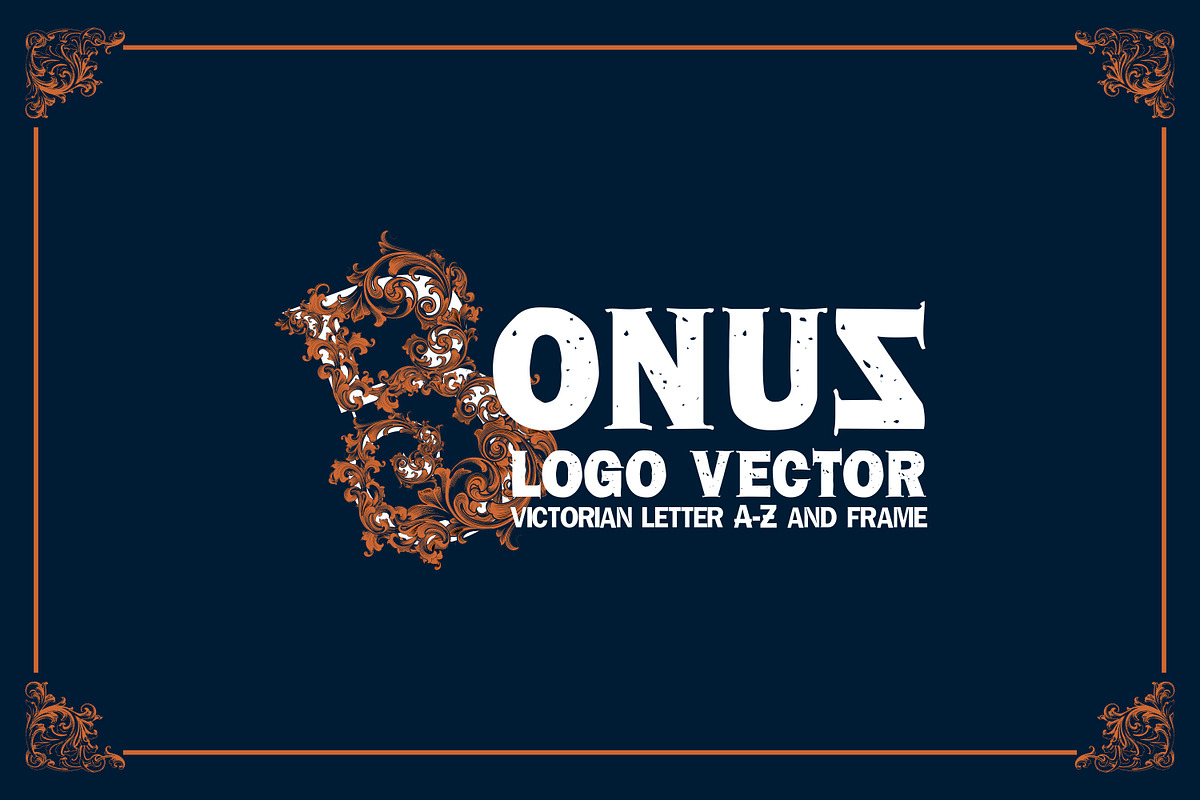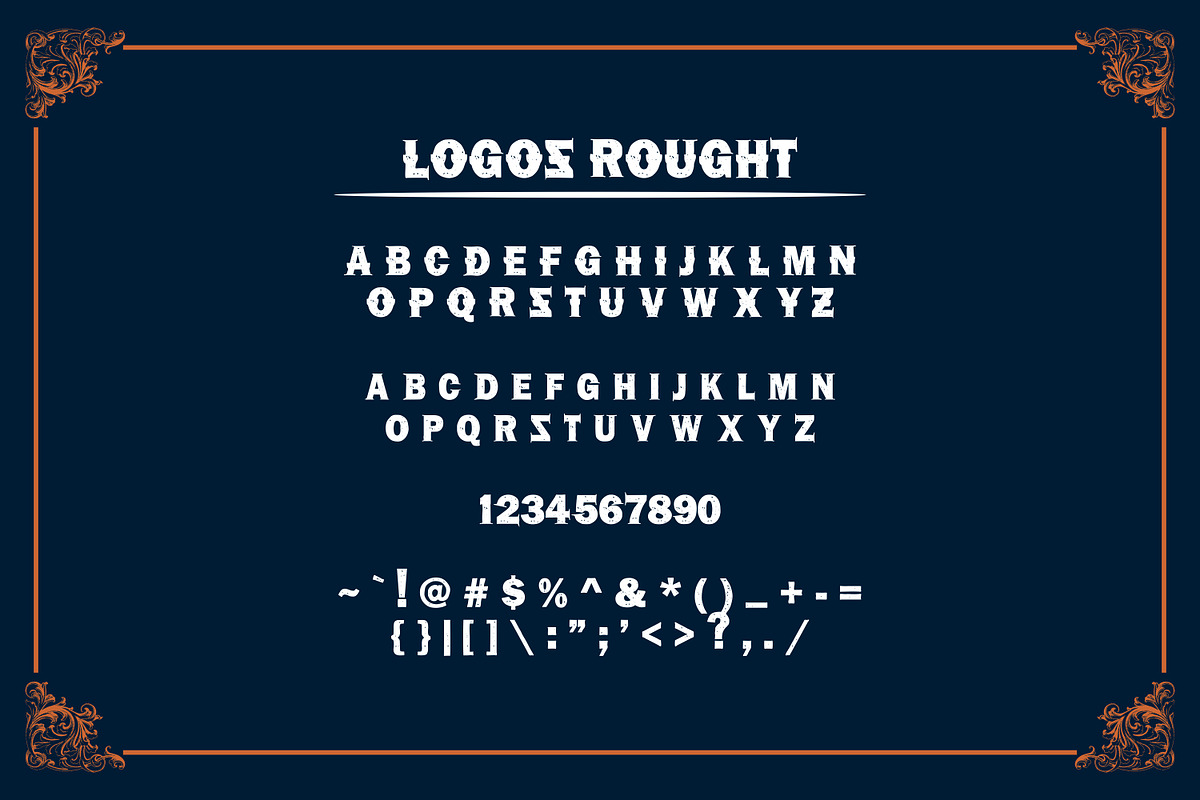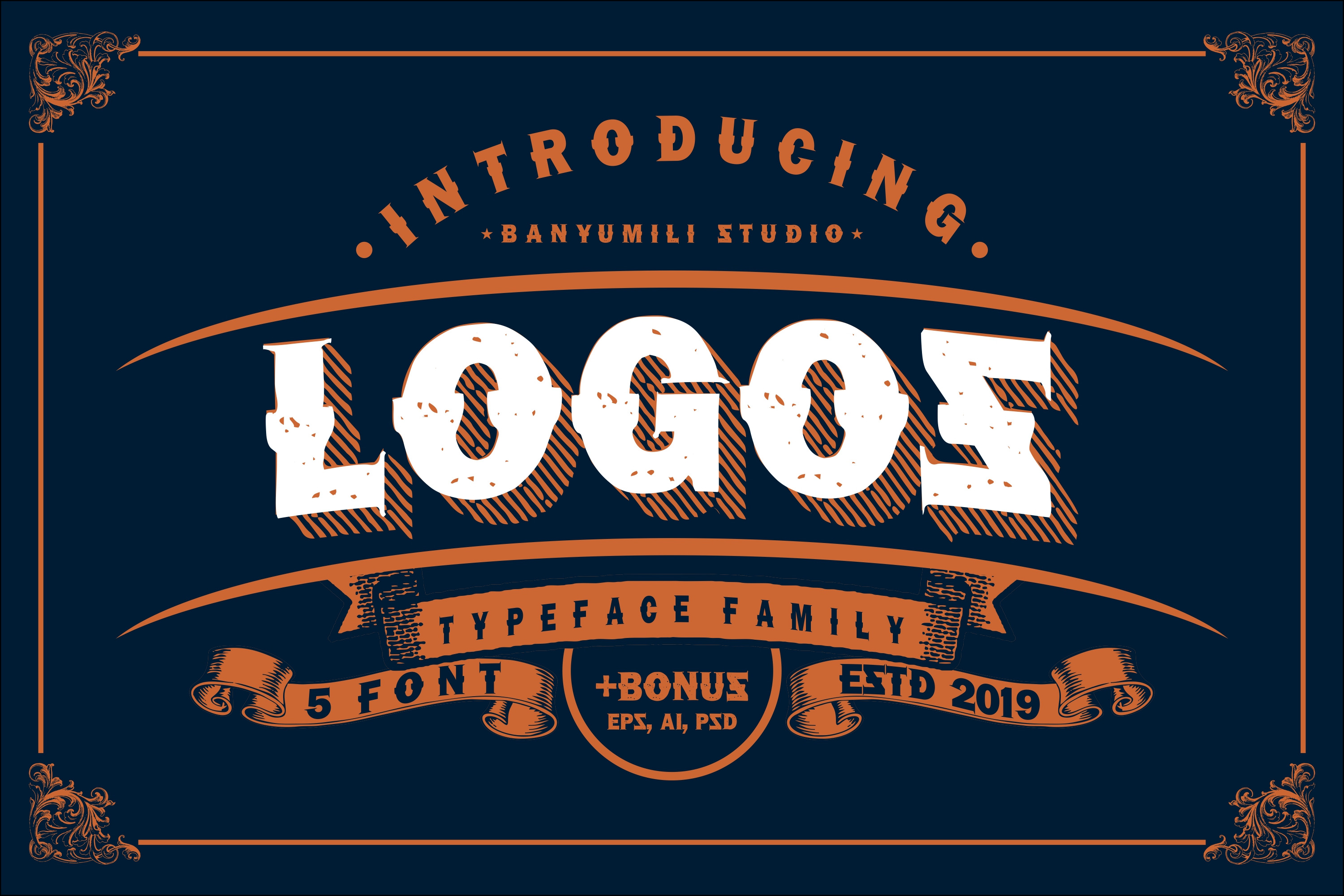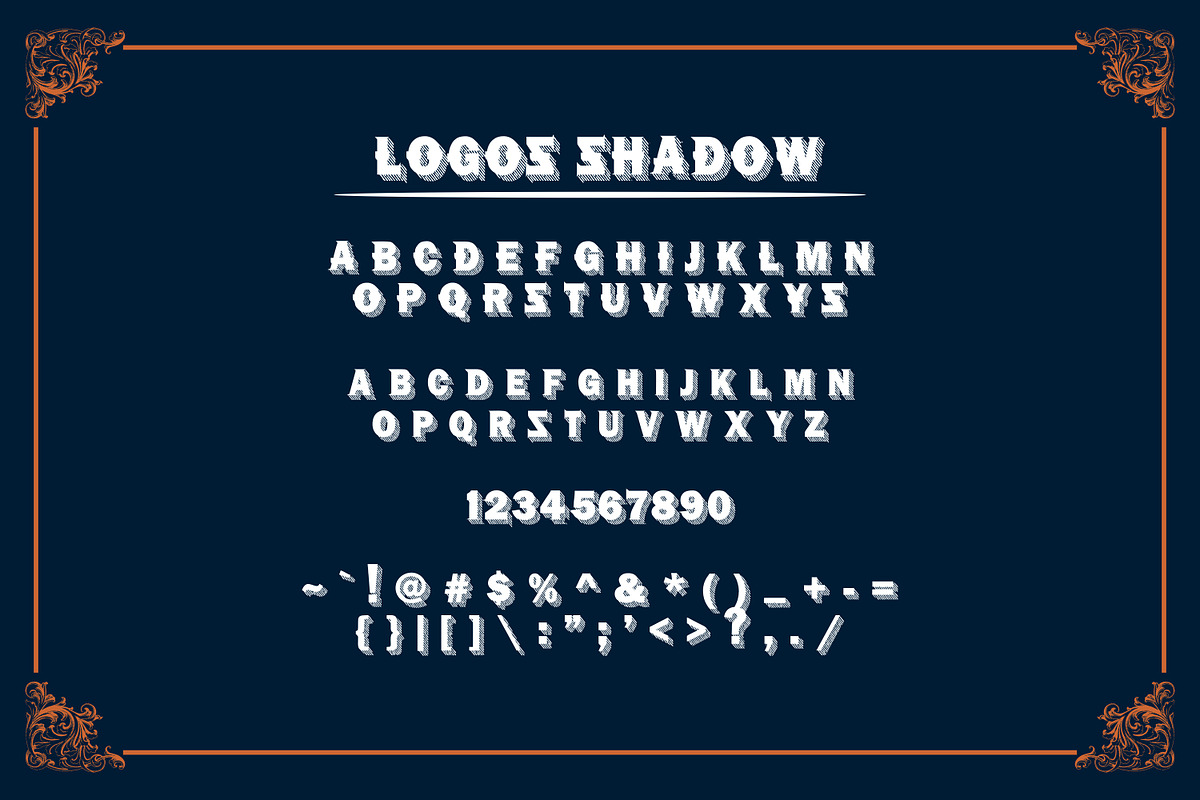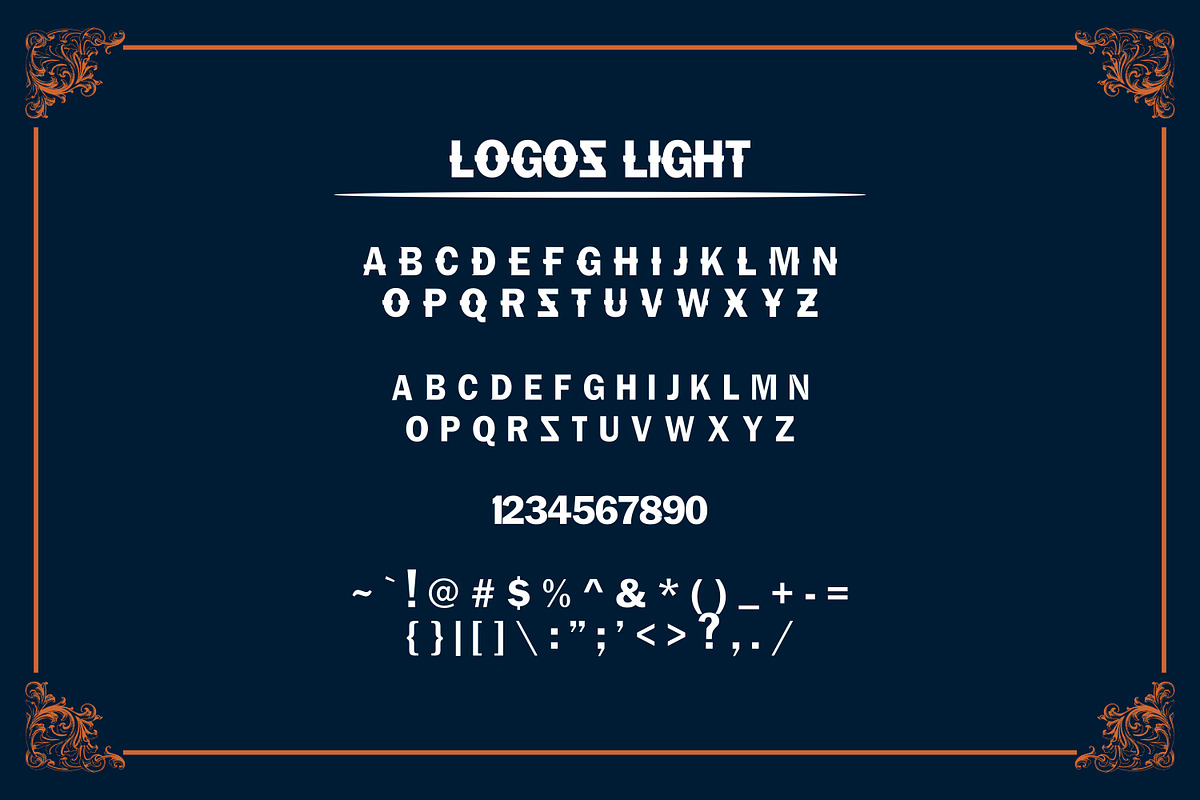
LOGOS | 5 Font + Bonus
The LOGOS family is a versatile font. This is perfect for all logo designs, headlines or packaging designs. This product also includes a set of illustrations of Victorian letter logos as well as several decorative ornament frames. This combination allows you to easily build a strong design but also beautiful in a short time.
- Set A-Z characters with special uppercase letters